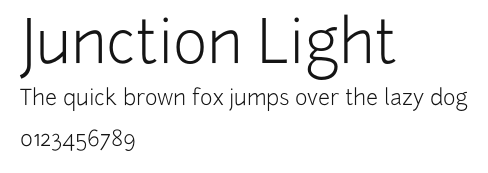
• Font Name: Junction Light
• Designer: Caroline Hadilaksono
About Junction Light.otf
Junction Light.otf is a modern, elegant sans-serif font designed for ultimate readability and visual harmony. Perfect for branding, headlines, web design, and print materials.